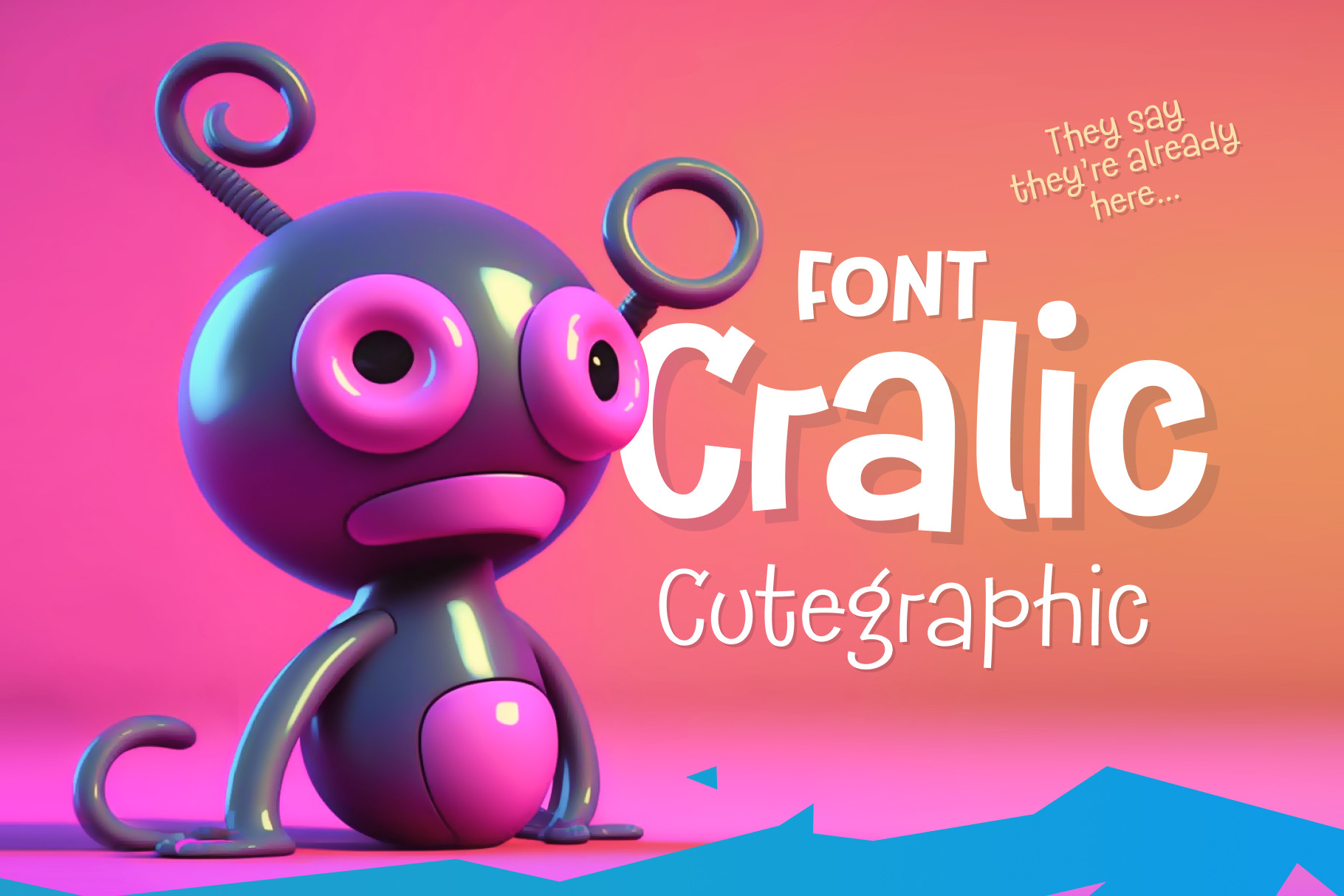
Cralic modern kids children font
Great family of 9 fonts Cralic
The** Cralic font** is a great choice for playful and childish designs. It's a cute and quirky display font that will bring a touch of fun to any project. This font is perfect for branding projects, logos, wedding designs, social media posts, advertisements, product packaging, labels, photography, invitations and any other project that needs a handwritten style.